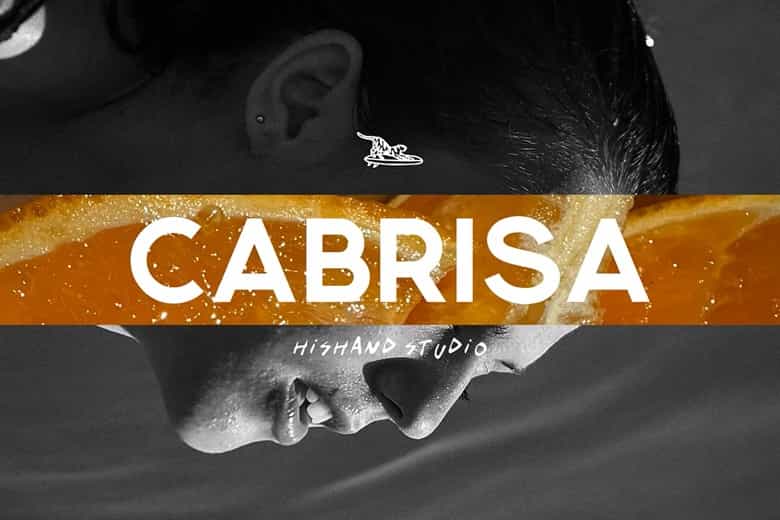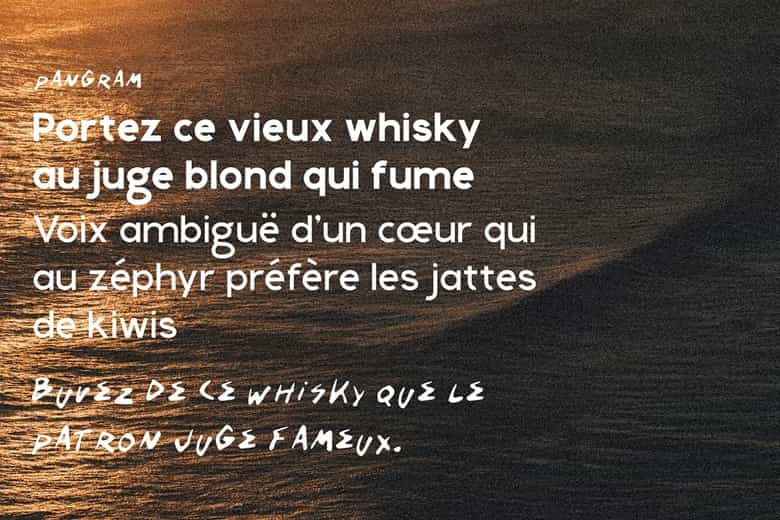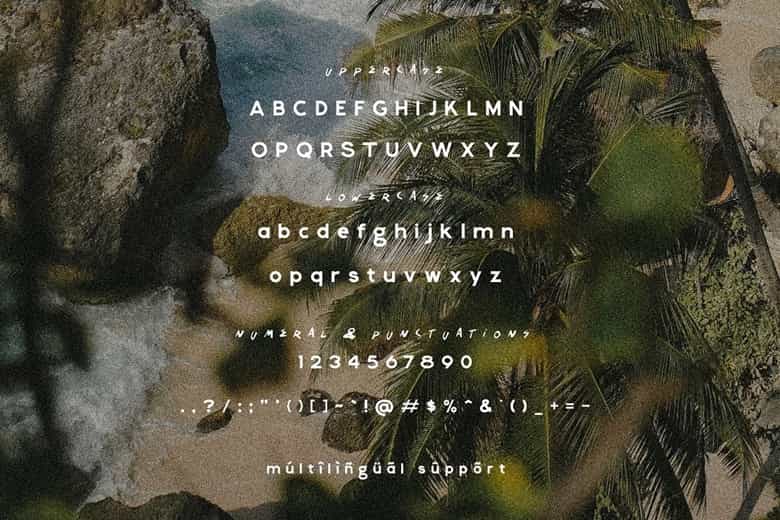
Cabrisa has a reflective style with a basic sans serif and an authentic hand-drawn script font duo. Fits well with current brand designs, social media and editorial materials. There are 26 visual symbols included to help your projects appear elegant and clean. This option is suited to people who want a good mix of design and character.